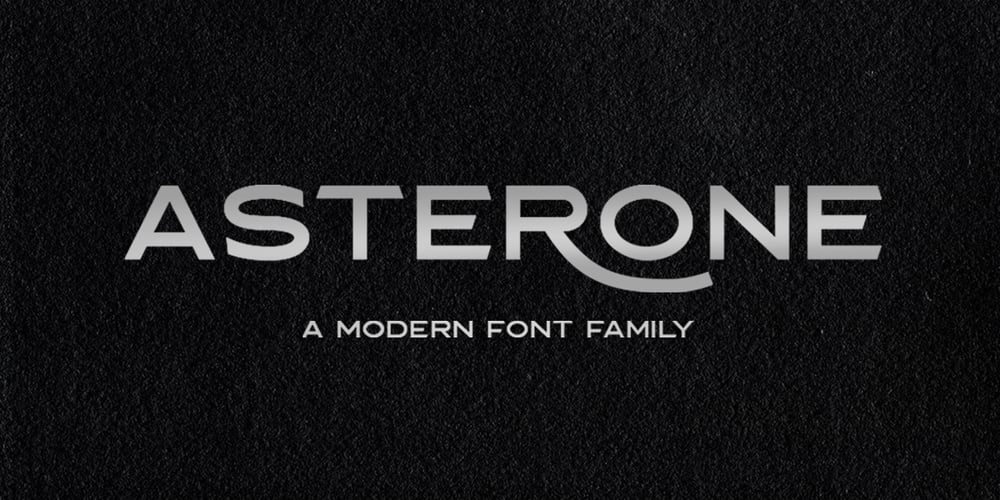
Asterone
Asterone font
Asterone Font Family was designed by Hendry Juanda and published by Letterhend. Asterone contains 4 styles and family package options. Asterone is a modern font family and works perfect for anyone who needs a typeface for headline, logotype, apparel, invitation, branding, packaging, advertising etc. Asterone comes in uppercase, lowercase, punctuation, symbols, numerals, stylistic set alternate, ligatures, etc also support multilingual.